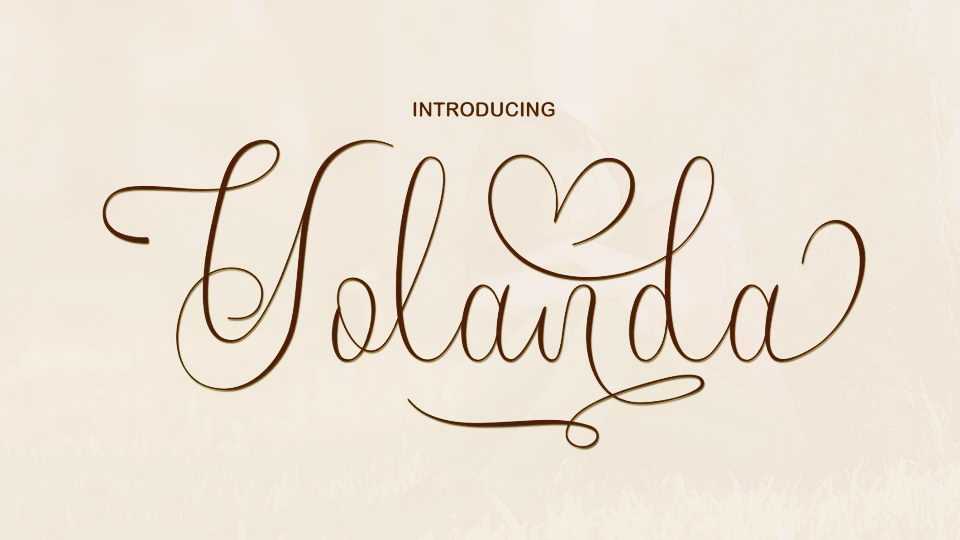
Download Yolanda font, a romantic modern calligraphy script with decorative characters. Yolanda script looks wonderful for wedding designs, greeting cards, branding, business cards, quotes, social media and more.